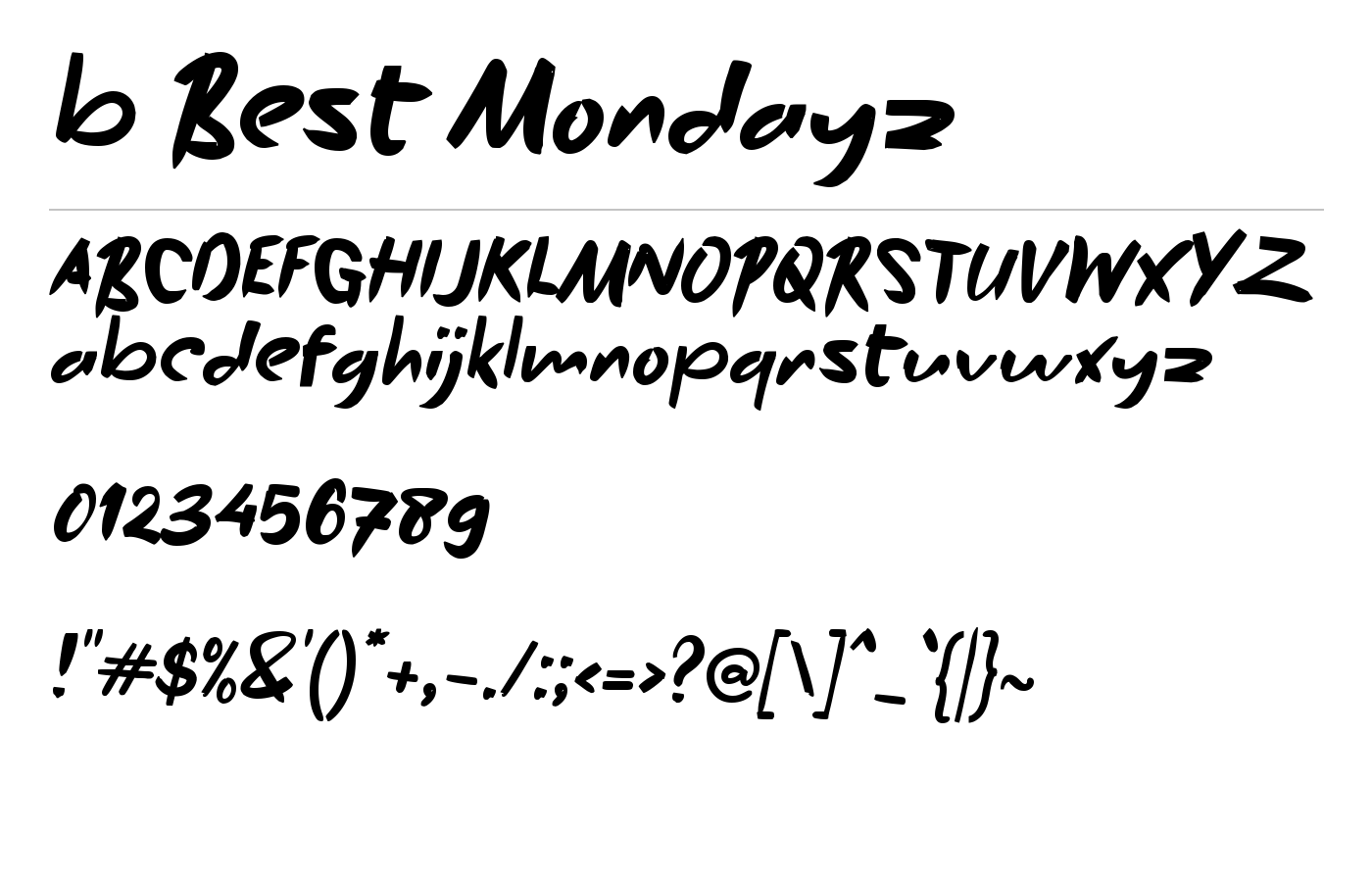
Best Mondayz is a lively, hand-drawn script font with bold, brush-like strokes that give it an energetic and casual feel. Its irregular shapes and dynamic flow make it perfect for creative projects, branding, or headlines that seek a playful and spontaneous vibe. This font works well where a warm, personal touch is desired, such as posters, logos, or informal invitations.
b Best Mondayz Font